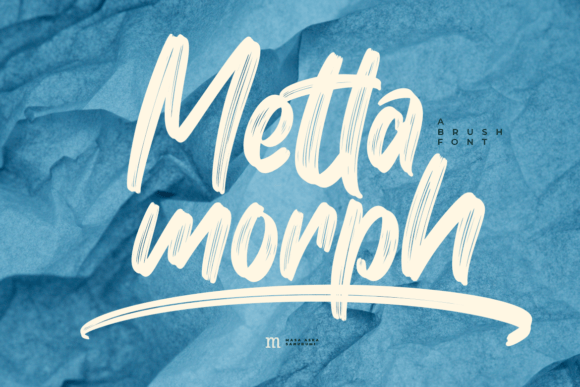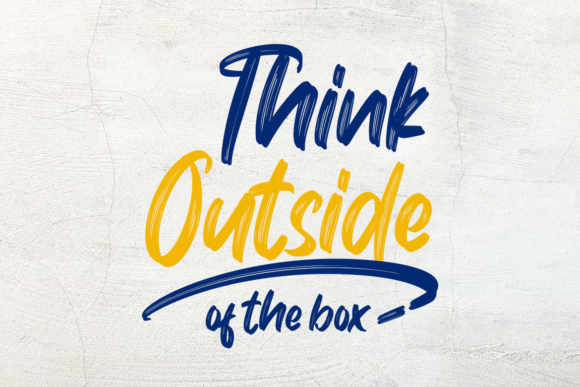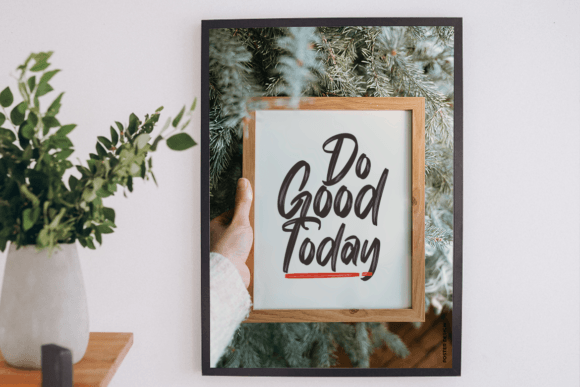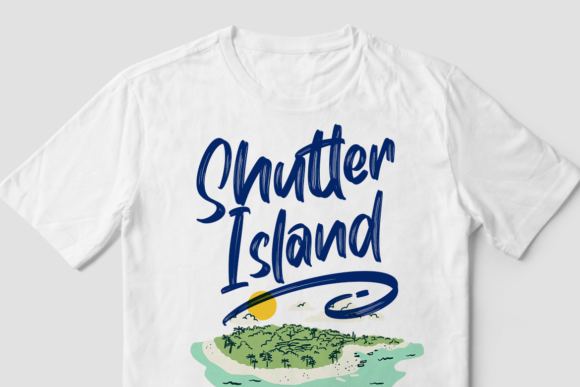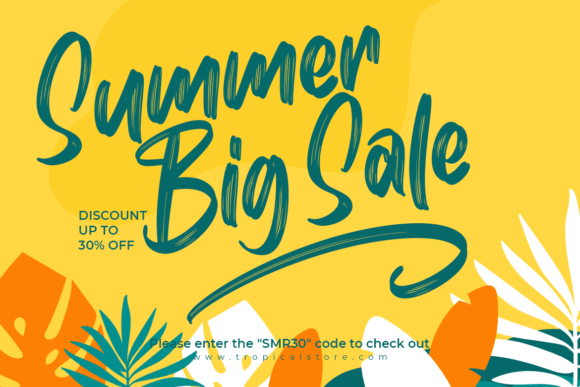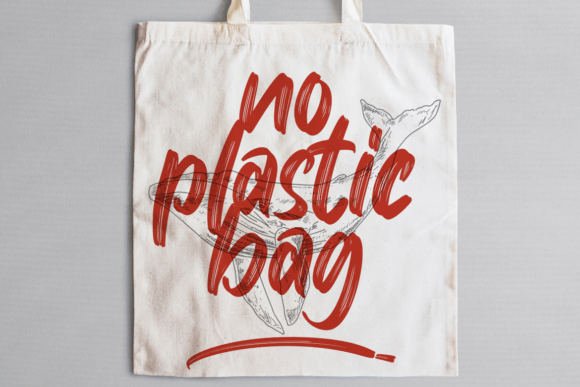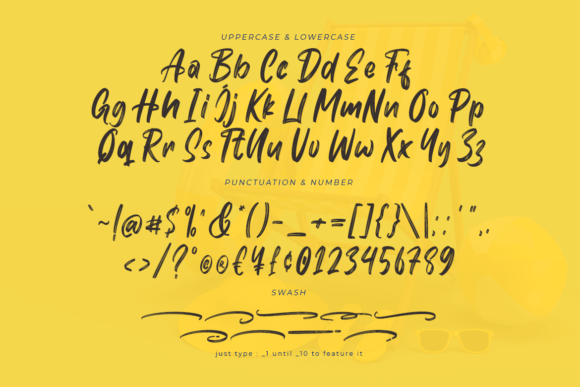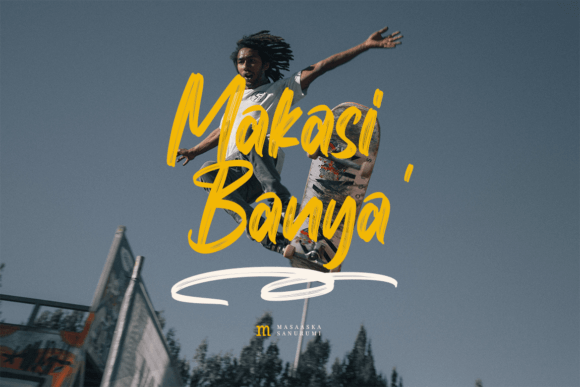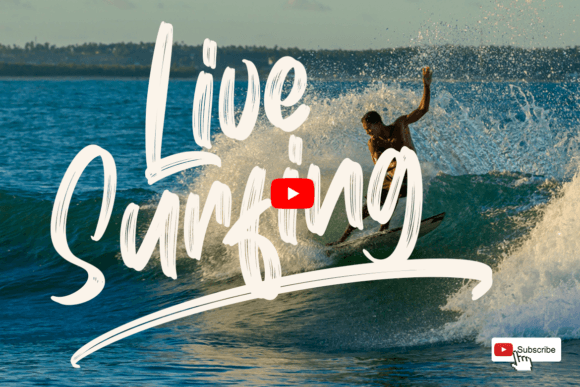
Mettamorph Font
Add Stylish Versatility with Mettamorph Font
Mettamorph Font is a versatile and stylish handwritten script typeface designed to bring a clean and exquisite feel to your creative projects. This font fits a wide range of applications, making it an excellent choice for designers and creators alike. Whether you are crafting greeting cards, headlines, social media graphics, or promotional materials, Mettamorph Font adds charm and elegance to your work.
Its smooth curves and balanced strokes create a polished and modern aesthetic that enhances the visual appeal of any design.
Versatile Uses for Mettamorph Font
Mettamorph Font works beautifully in many creative projects, including:
• Greeting cards and invitations
• Headlines and titles for posters and flyers
• Social media content and digital designs
• Branding and logo elements
• Personalized stationery and notes
• Craft and DIY projects
Thanks to its versatile and stylish handwritten script style, Mettamorph Font adds sophistication and personality to all your ideas.
It features optimized kerning and clear spacing to ensure your text stays and attractive across different sizes and formats.
Why Designers Choose MettamorphFont
Designers and creatives appreciate MettamorphFont for its blend of style and . It adds a refined and modern touch that any design. Whether you are a professional or a hobbyist, MettamorphFont helps you create beautiful.
Use MettamorphFont to bring stylish and clean elegance to your next creative project.